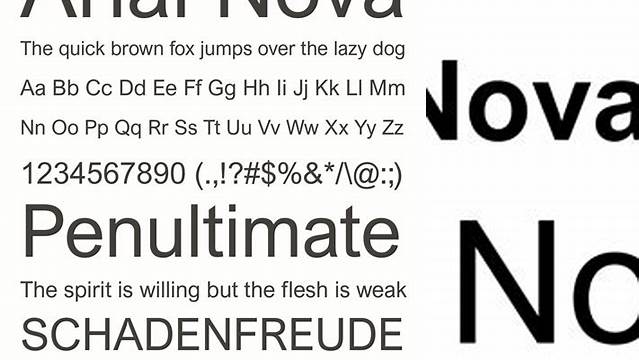
Arial Nova: Discover Free Font Alternatives
Hey guys! Ever heard of Arial Nova? It's a super sleek and modern font that's been turning heads in the design world. But what if you're looking for something similar, maybe even free? Well, buckle up because we're diving deep into the world of fonts, exploring amazing alternatives to Arial Nova that won't cost you a dime! Whether you're a seasoned designer or just starting out, finding the perfect font is crucial for making your projects pop. Let's get started!
What is Arial Nova?
Before we jump into alternatives, let's quickly chat about what Arial Nova actually is. Arial Nova is a sans-serif typeface known for its clean lines and contemporary feel. Itβs often used in various design projects, from websites to print materials. It's got a certain sophistication that makes it a popular choice. Now, while Arial Nova isn't always readily available for free, understanding its characteristics helps us find great substitutes. Think of it as a slightly more refined version of the classic Arial, with subtle tweaks that give it a modern edge. Knowing this, we can look for fonts that share these qualities β clean, modern, and versatile. You might be wondering why bother looking for alternatives? Well, sometimes budget constraints are a factor, other times you might want a slightly different flavor to your design. Whatever your reason, having options is always a good thing! So, stick around as we uncover some awesome free fonts that capture the essence of Arial Nova without breaking the bank.
Free Arial Nova Alternatives
Alright, let's get to the juicy part! Finding free alternatives to Arial Nova can be a game-changer, especially when you're trying to keep your design costs down. There are tons of fantastic fonts out there that offer a similar aesthetic without the hefty price tag. Think about fonts like Roboto, Open Sans, and Lato β these are all popular choices that share Arial Nova's clean, sans-serif style. The key is to look for fonts that have good readability, a modern feel, and come with a variety of weights and styles. This gives you the flexibility to use them in different parts of your design, from headings to body text. Don't be afraid to experiment and try out different combinations! You might even discover a new favorite font that you like even more than Arial Nova. And the best part? They're all free! So go ahead, download a few and see how they look in your projects. You might be surprised at the amazing results you can achieve without spending a penny. Keep reading, and weβll delve into some specific recommendations and where to find them.
Fonts Similar to Arial Nova
When searching for fonts similar to Arial Nova, focus on the characteristics that make Arial Nova stand out: its clean, sans-serif design, modern appearance, and versatility. Fonts like Helvetica, Univers, and even some variations of Arial itself can serve as excellent substitutes. The trick is to pay attention to the details β things like letter spacing, stroke thickness, and overall visual balance. A font might look similar at first glance, but subtle differences can have a big impact on your design. Also, consider the context in which you'll be using the font. Is it for a website, a printed brochure, or a logo? The best font for one project might not be the best for another. So, take the time to compare different options and see how they look in your specific design. You can even create mockups with different fonts to get a better sense of how they'll work in the real world. Remember, the goal is to find a font that captures the essence of Arial Nova while also meeting the unique needs of your project. With a little bit of research and experimentation, you're sure to find the perfect match!
Arial Nova Font Family
Understanding the Arial Nova font family can give you a broader perspective on its capabilities and how it can be used in various design contexts. Font families typically include different weights (e.g., light, regular, bold) and styles (e.g., italic, condensed) that provide flexibility and consistency in your typography. When you're considering Arial Nova or its alternatives, think about the range of options you need. Does the project require a bold font for headings and a lighter font for body text? Does it need italic styles for emphasis? The more options a font family offers, the more versatile it will be for your design. So, take a look at the different weights and styles available and see how they can be combined to create a cohesive and visually appealing look. This is especially important for larger projects that require a consistent typographic voice throughout.
Arial Nova vs. Arial
Let's settle the score: Arial Nova vs. Arial. While they share a common ancestor, there are key differences that set them apart. Arial Nova is often seen as a more refined and modern version of the classic Arial. It typically features subtle tweaks in the letterforms, spacing, and overall design that give it a more contemporary feel. Arial, on the other hand, is a widely used and very familiar font that's been around for a long time. It's known for its simplicity and readability, but some might find it a bit generic compared to Arial Nova. The choice between the two often comes down to personal preference and the specific needs of your project. If you're looking for a font that's clean, legible, and widely compatible, Arial is a solid choice. But if you want something with a bit more personality and a modern edge, Arial Nova might be the way to go. Or, of course, you could explore the many free alternatives we've been discussing!
Arial Nova Web Font
For web design, using Arial Nova as a web font can be a great way to add a touch of sophistication to your website. However, it's important to consider the technical aspects of using custom fonts on the web. You'll need to ensure that the font is properly licensed for web use and that it's optimized for different browsers and devices. This typically involves using font formats like WOFF, WOFF2, and EOT, and implementing CSS rules to specify how the font should be displayed. Another option is to use a web font service like Google Fonts or Adobe Fonts, which can simplify the process of embedding fonts on your website. These services often provide optimized versions of popular fonts and handle the technical details for you. And, of course, they offer a wide range of free fonts that can serve as excellent alternatives to Arial Nova. So, whether you choose to use Arial Nova directly or opt for a free alternative, make sure to optimize your web fonts for performance and cross-browser compatibility.
Arial Nova Pairing
Choosing the right font pairing is crucial for creating visually appealing and effective designs. When using Arial Nova or its alternatives, think about the other fonts you'll be using alongside it. A good rule of thumb is to pair a sans-serif font like Arial Nova with a serif font for contrast and balance. For example, you could pair Arial Nova with a classic serif font like Times New Roman or Garamond for a traditional look, or with a more modern serif font like Playfair Display for a more contemporary feel. Alternatively, you could pair Arial Nova with another sans-serif font that has a different weight or style to create visual interest. The key is to experiment and see what works best for your specific project. Consider the overall tone and message you want to convey, and choose font pairings that support that message. And don't be afraid to break the rules and try something unexpected β sometimes the most unconventional pairings can be the most effective!
Arial Nova Typography
Arial Nova typography involves understanding how to effectively use the font to communicate your message and create a visually appealing design. This includes considering factors like font size, line height, letter spacing, and color. Experiment with different combinations of these elements to see how they affect the overall look and feel of your text. Also, think about the hierarchy of your typography β how can you use different font sizes and weights to guide the reader's eye and highlight important information? For example, you might use a larger, bolder font for headings and a smaller, lighter font for body text. Consistency is also key β stick to a limited number of fonts and styles throughout your design to create a cohesive and professional look. By paying attention to these details, you can create typography that is both visually appealing and easy to read.
Arial Nova Font Trends
Staying up-to-date with Arial Nova font trends can help you create designs that are modern and stylish. Some current trends include using bold and oversized typography, experimenting with different font pairings, and incorporating hand-drawn elements. However, it's important to choose trends that are appropriate for your brand and audience. Avoid blindly following trends without considering the overall message and tone of your design. And remember, classic and timeless designs are often the most effective.